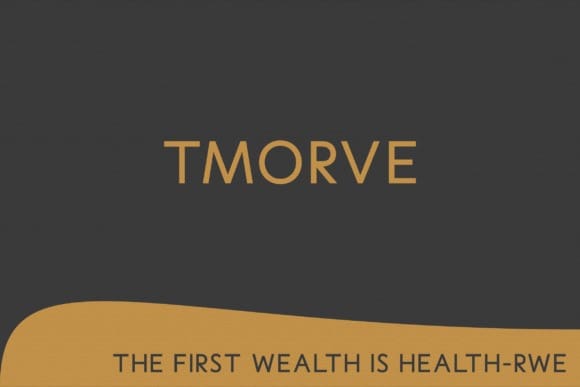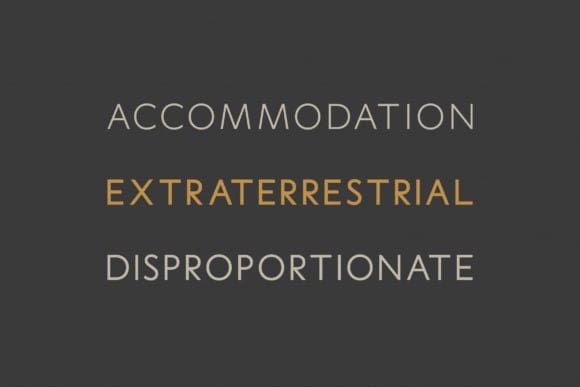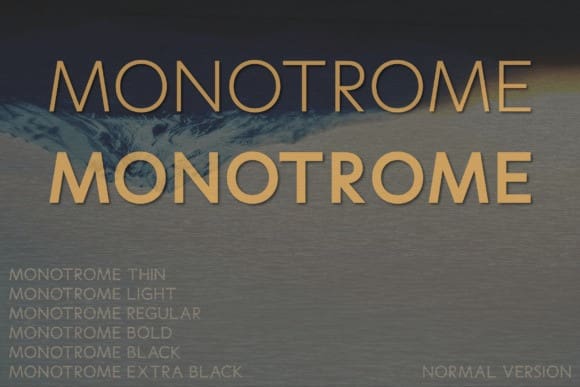
Monotrome Font Family
Monotrome Font Family. This refined sans serif collection, featuring five unique weights, masterfully weaves together elements of modern flair and luxurious feel. Precision-crafted, Monotrome effortlessly elevates any project, be it a glossy magazine, an intricate logo, or an eye-catching film poster. Experience an impeccable blend of sophistication and simplicity with Monotrome, a font that adds a touch of enduring charm to your designs. Experience the transformative prowess of the Monotrome font family in your next project.